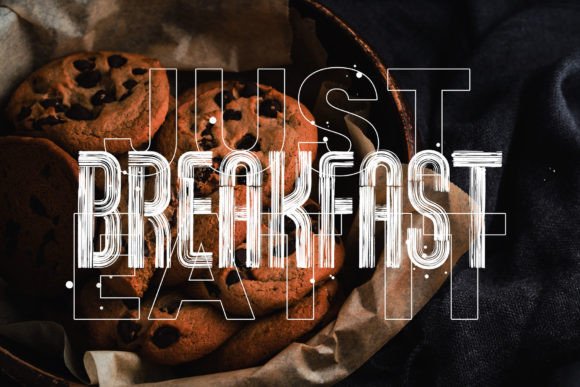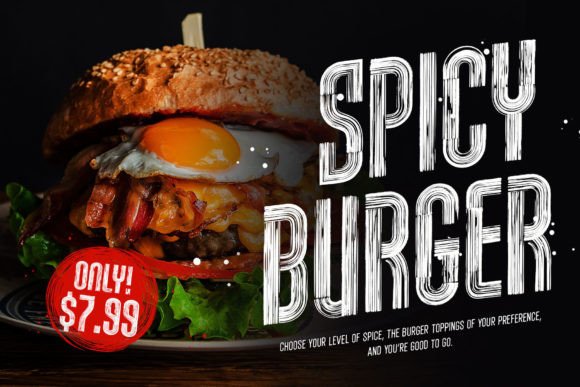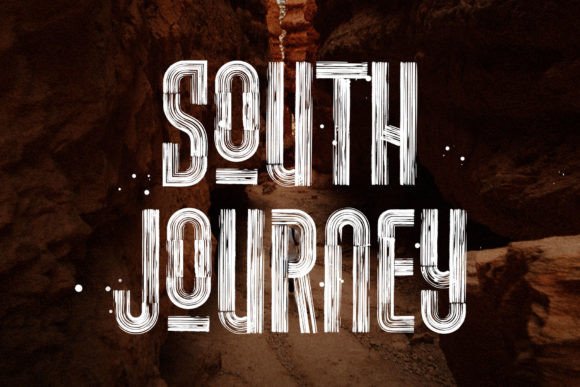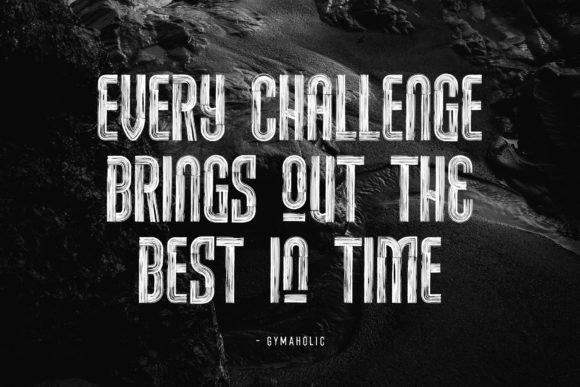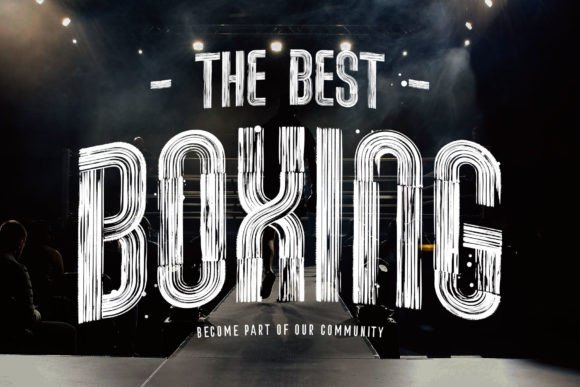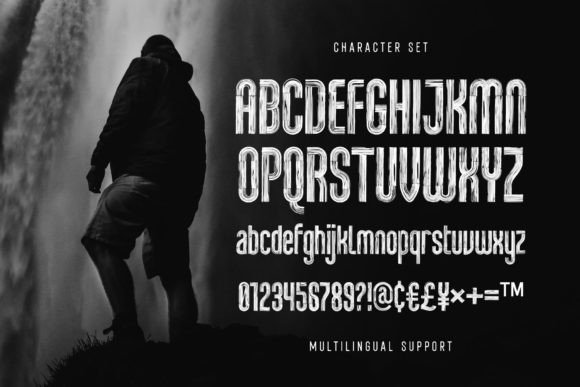
Introducing Haudrey Font: The Quirky and Versatile Dry Brush Display Font
Are you tired of using the same old fonts in your designs? Look no further than Haudrey Font, a unique and interesting dry brush display font that’s sure to add a touch of personality to your projects. With its quirky and eclectic vibe, Haudrey is the perfect choice for designers and crafters looking to add some flair to their work.
What Makes Haudrey Font So Special?
Haudrey Font is a one-of-a-kind dry brush display font that’s designed to stand out from the crowd. Its unique blend of quirky and elegant features makes it incredibly versatile, and it can be used in a wide variety of contexts. Whether you’re working on a logo, a poster, or a social media graphic, Haudrey is sure to make your design pop.
The Benefits of Using Haudrey Font
So why should you choose Haudrey Font for your next project? Here are just a few of the benefits of using this amazing font:
- Unique and eye-catching: Haudrey Font is a true standout, with a quirky and eclectic vibe that’s sure to grab attention.
- Versatile: Whether you’re working on a logo, a poster, or a social media graphic, Haudrey is versatile enough to fit in with any design style.
- Perfect for designers and crafters: Haudrey Font is a great choice for anyone who wants to add a personal touch to their designs, from professional designers to hobbyists and crafters.
How to Use Haudrey Font in Your Designs
So how can you use Haudrey Font in your designs? Here are a few ideas to get you started:
- Logos: Haudrey Font is a great choice for logos, with its unique and eye-catching vibe making it perfect for businesses that want to stand out.
- Posters: Add some flair to your posters with Haudrey Font, which is perfect for headlines and titles.
- Social media graphics: Haudrey Font is a great choice for social media graphics, with its quirky and eclectic vibe making it perfect for grabbing attention on platforms like Instagram and Facebook.
- Crafting projects: Haudrey Font is also a great choice for crafters, who can use it to add a personal touch to their projects, from handmade cards to DIY signs.
Tips for Getting the Most Out of Haudrey Font
Here are a few tips for getting the most out of Haudrey Font:
- Experiment with different sizes: Haudrey Font looks great in a wide range of sizes, so don’t be afraid to experiment and find the perfect size for your design.
- Play with color: Haudrey Font is a great choice for designers who want to add some color to their designs, with its quirky and eclectic vibe making it perfect for bold and bright colors.
- Mix and match: Don’t be afraid to mix and match Haudrey Font with other fonts and design elements to create a unique and eye-catching look.
In conclusion, Haudrey Font is a unique and interesting dry brush display font that’s sure to add a touch of personality to your designs. With its quirky and eclectic vibe, PUA encoding, and versatility, Haudrey is the perfect choice for designers and crafters looking to take their typography to the next level. So why not give Haudrey Font a try today and see the difference it can make in your designs?